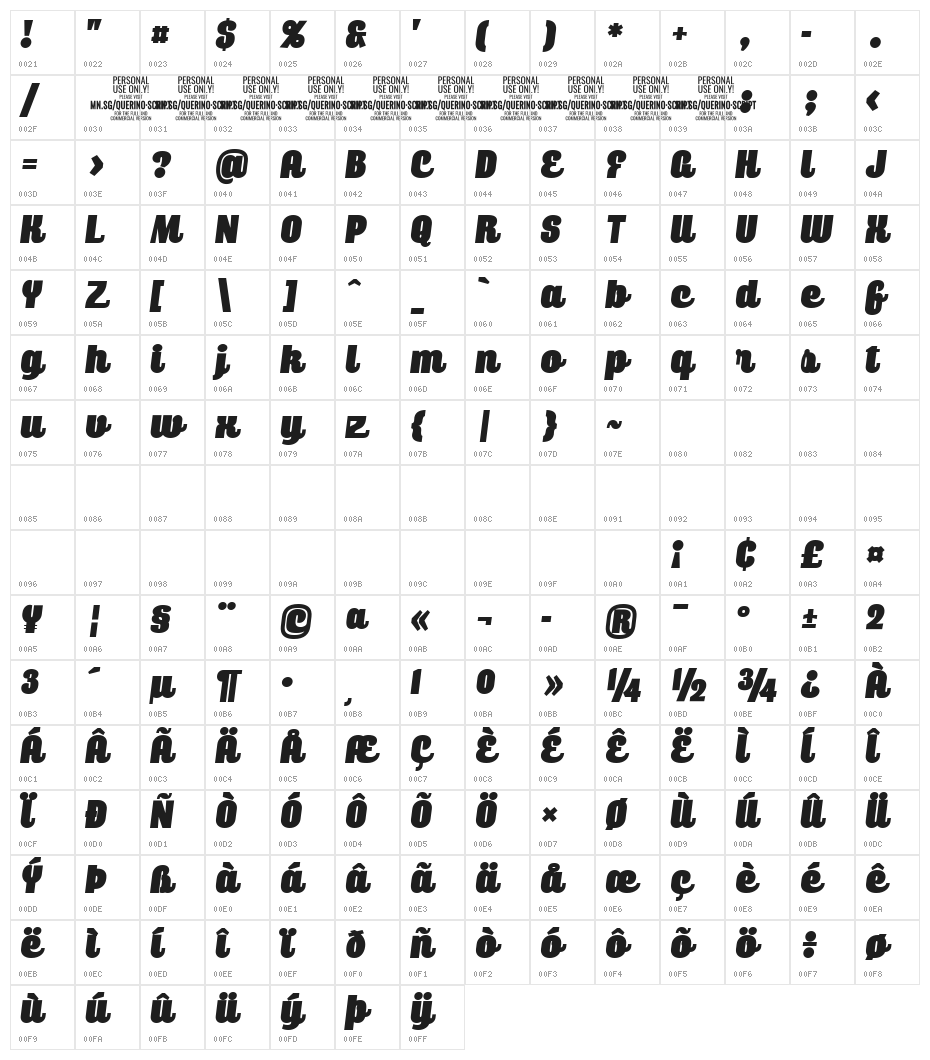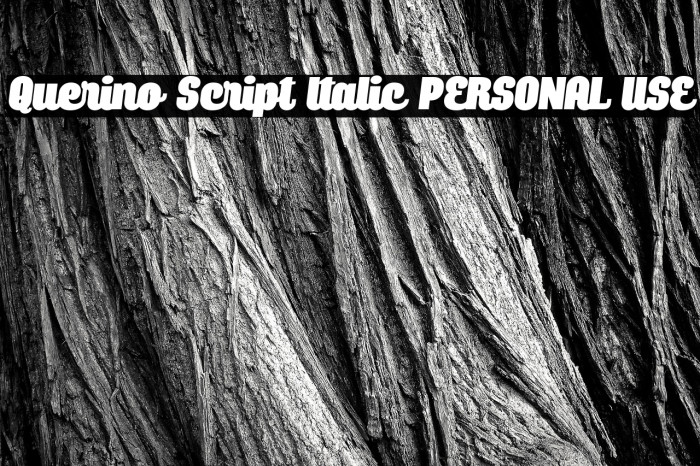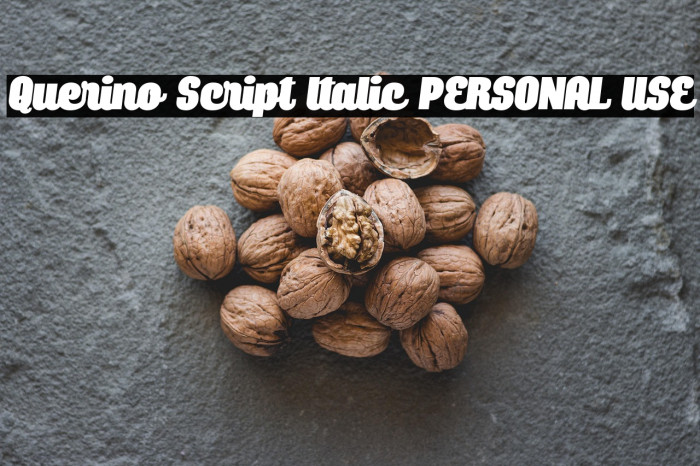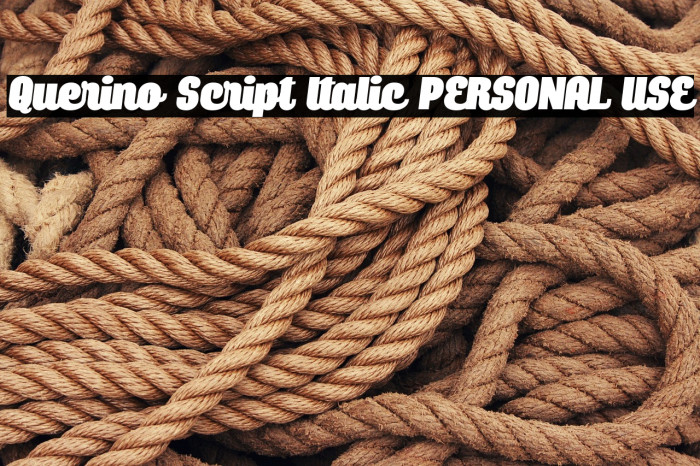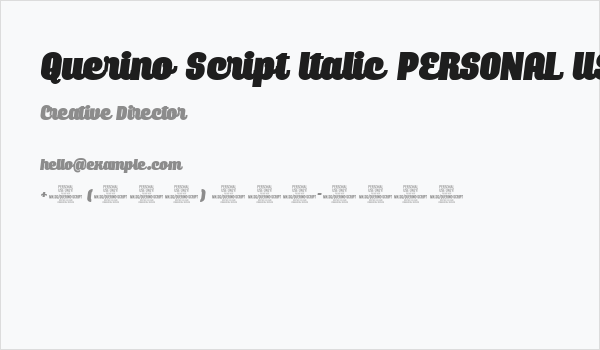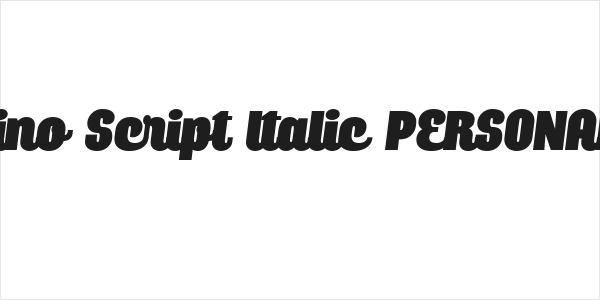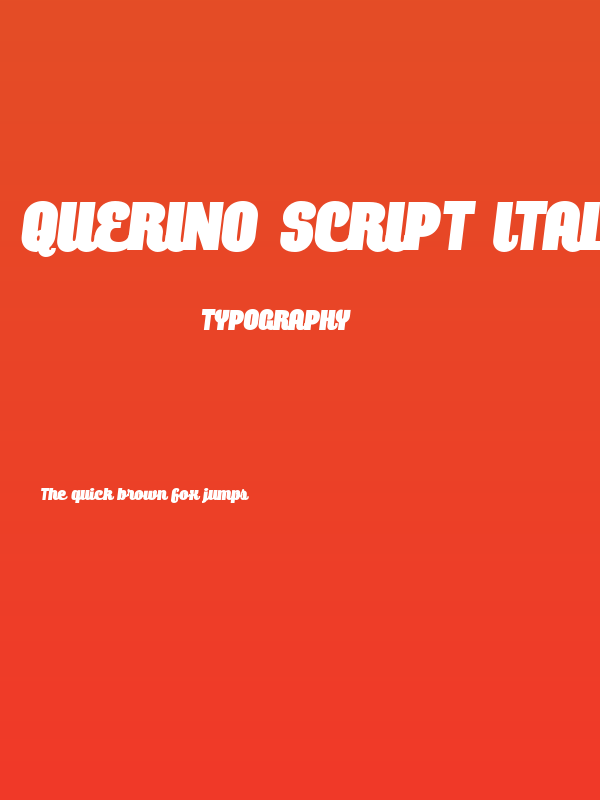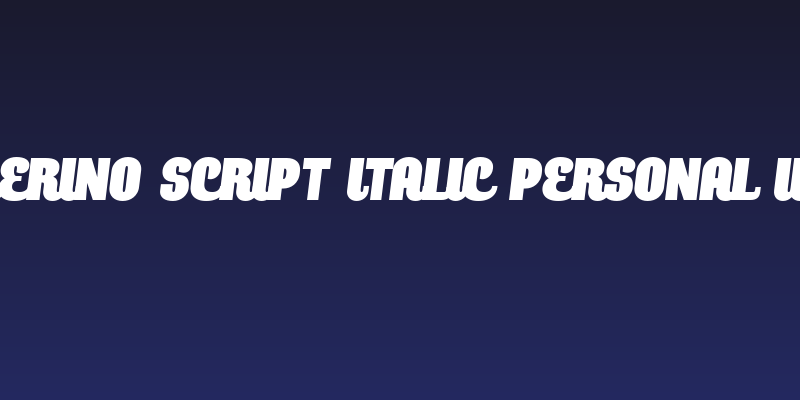
Querino Script Italic PERSONAL USE Font
Querino Script Italic PERSONAL USE Description
This font features a bold and dynamic script style with a strong italic slant, giving it a sense of movement and energy. The characters are closely connected, creating a flowing and cohesive appearance. The uppercase letters are robust and commanding, while the lowercase letters maintain a consistent and harmonious flow. The numerals and special characters are designed to match the overall aesthetic, ensuring uniformity across all text elements. This font's boldness and unique style make it stand out, perfect for projects that require a touch of flair and personality.
| Proposed Projects | Ideal for branding, logos, headlines, and creative design projects that need a bold and expressive touch. |